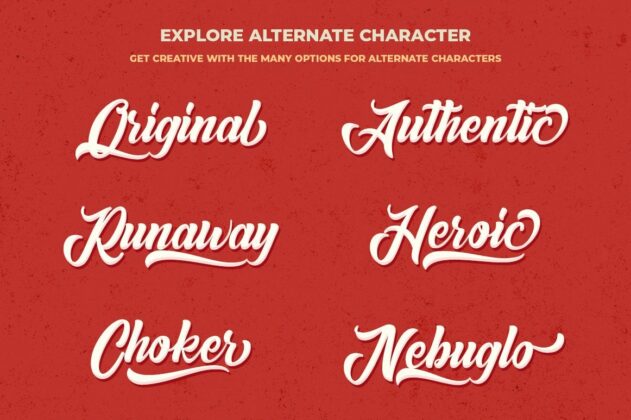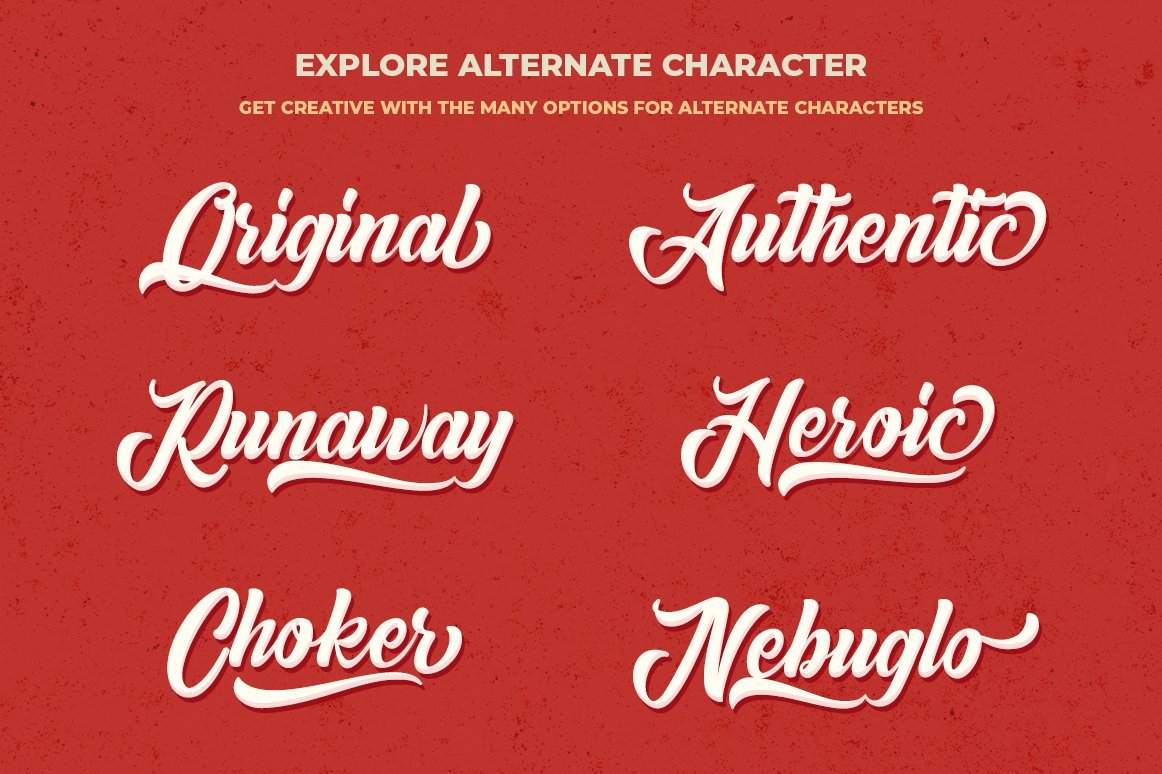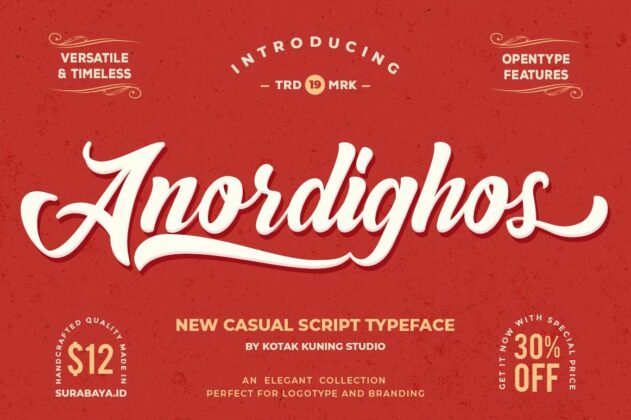
About Anordighos
Introducing my new font Anordighos A casual script typeface and combination with Hand Lettering style which gives more personal touch and makes the font looks being customized. This font is suitable to use as a logotype, product designs, label, watermark, social media posts, apparel, invitation, signboard, sport club, motor/car, special events or anything that need handwriting taste. What you get: Anordighos.ttf and Anordighos.otf Anordighos includes capital and lowercase letters, Alternates, and Ligatures Numbers + punctuation Foreign language support I highly recommend using a program that supports OpenType features and Glyphs panels such as Adobe Illustrator, Adobe Photoshop CC, Adobe InDesign, or CorelDraw, so you can see and access all Glyph variations. I highly recommend using a program that supports OpenType features and Glyphs panels such as Adobe Illustrator, Adobe Photoshop CC, Adobe InDesign, or CorelDraw, so you can see and access all Glyph variations. We hope you enjoy the font. Thank You.